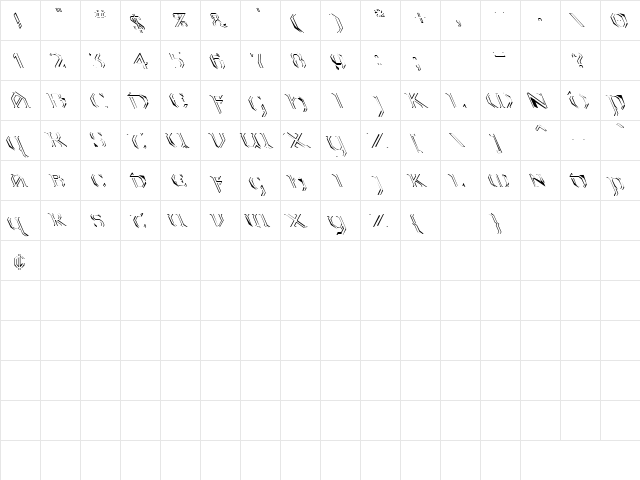
Futuregoth 1 Regular
Design Context for Futuregoth 1 Typeface
Futuregoth 1 has a distinctly futuristic character, with geometric precision and clean angles that feel at home in technology, gaming, and sci-fi contexts.